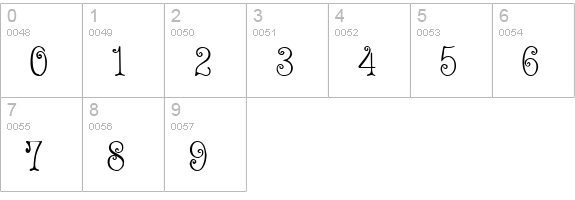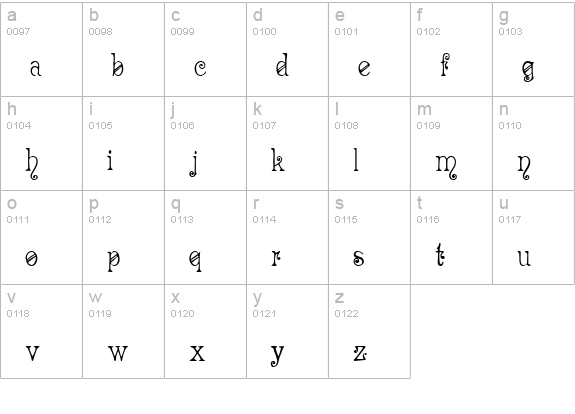
Acadianâ„¢ Font Details
Acadian™ font is a unique and elegant typeface that exudes sophistication and charm. Its flowing curves and modern yet classic design make it perfect for a wide range of design projects, from branding to editorial content. With its timeless appeal, Acadian™ font is sure to make your text stand out and captivate your audience. The best part is that Acadian™ font is free to download at FontsMarket.com. That's right, you can effortlessly enhance your designs with this stunning font without spending a dime. Whether you're a seasoned designer or just starting out, Acadian™ font is a valuable addition to your font collection. Download it today and experience the beauty and versatility of this exceptional typeface.